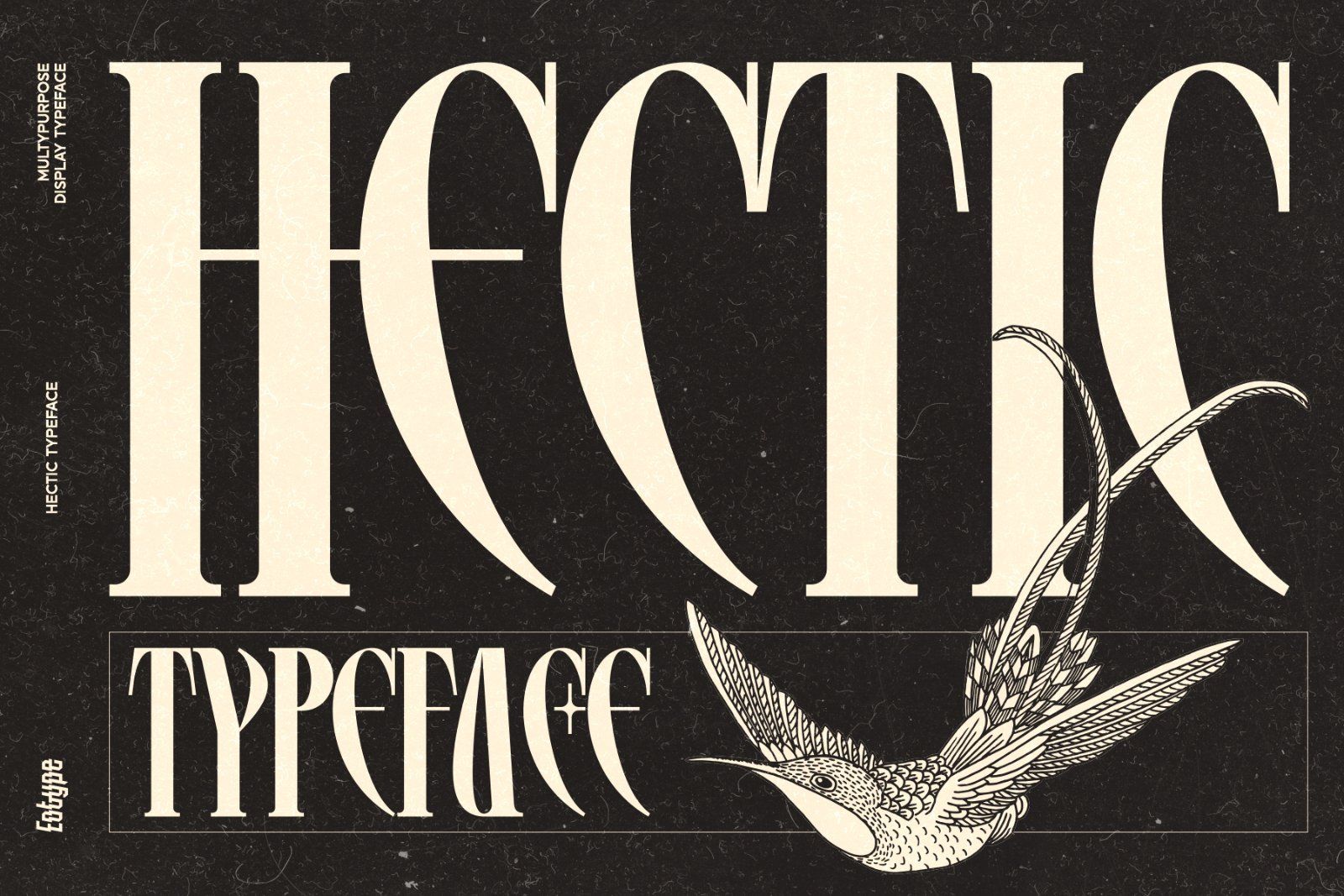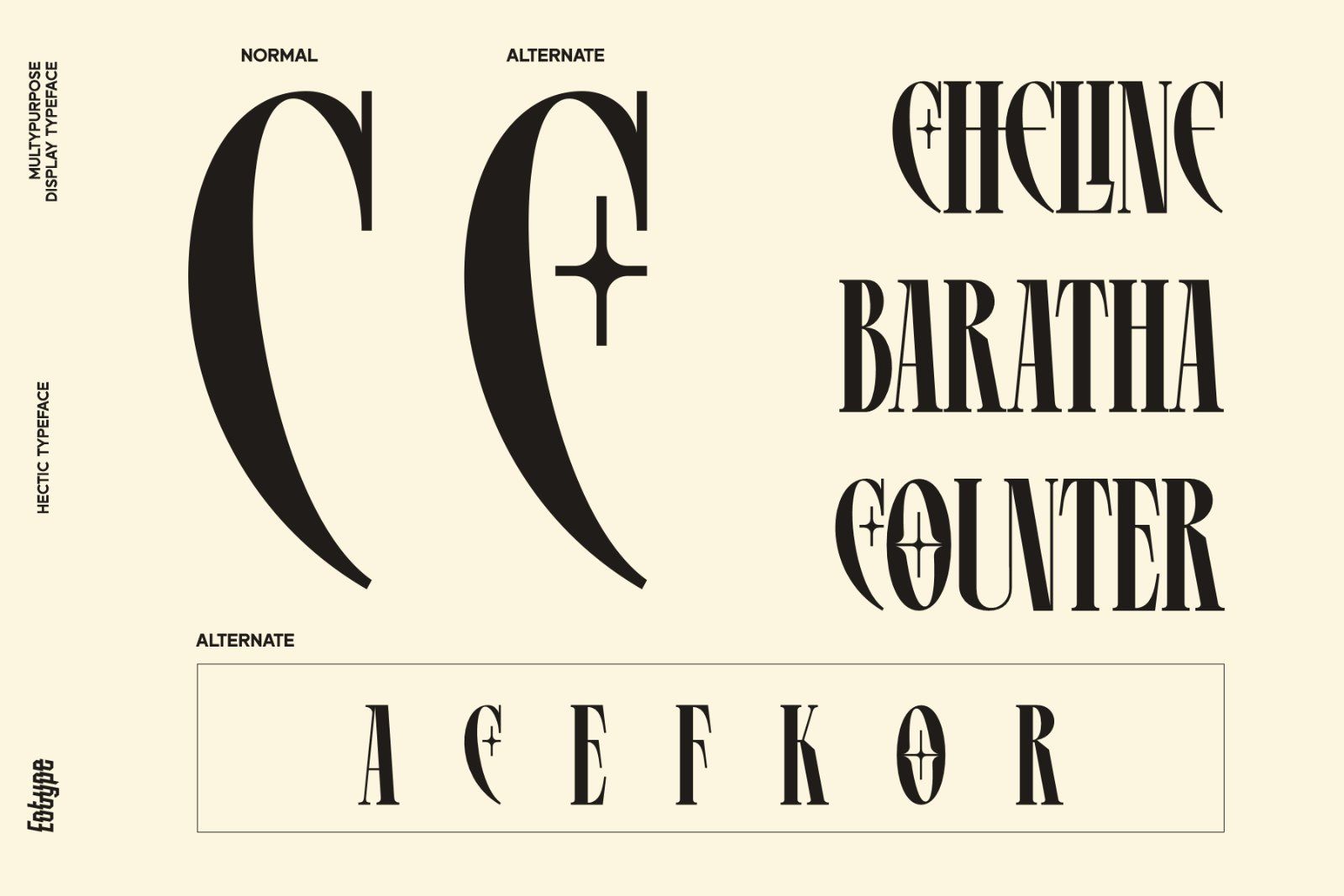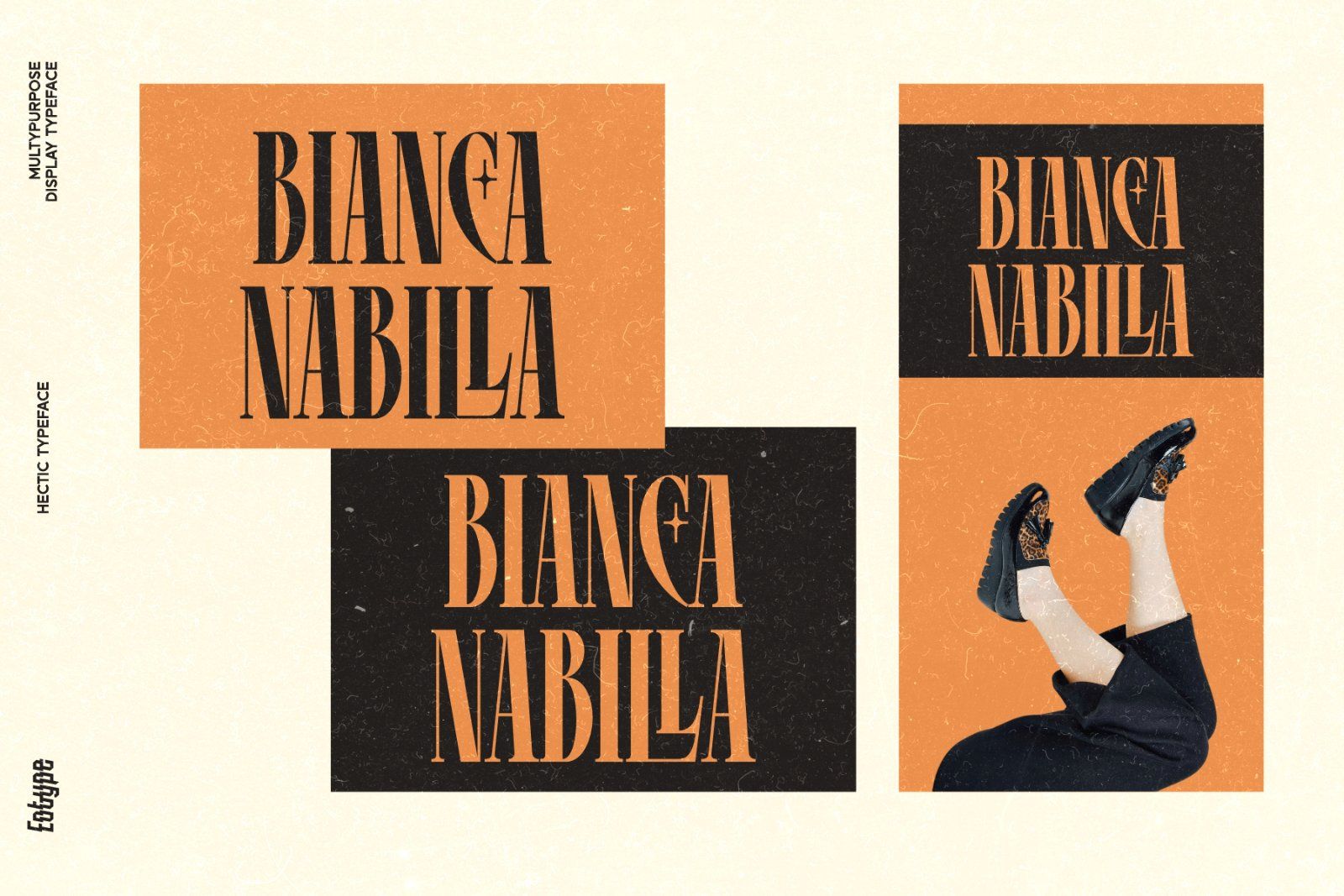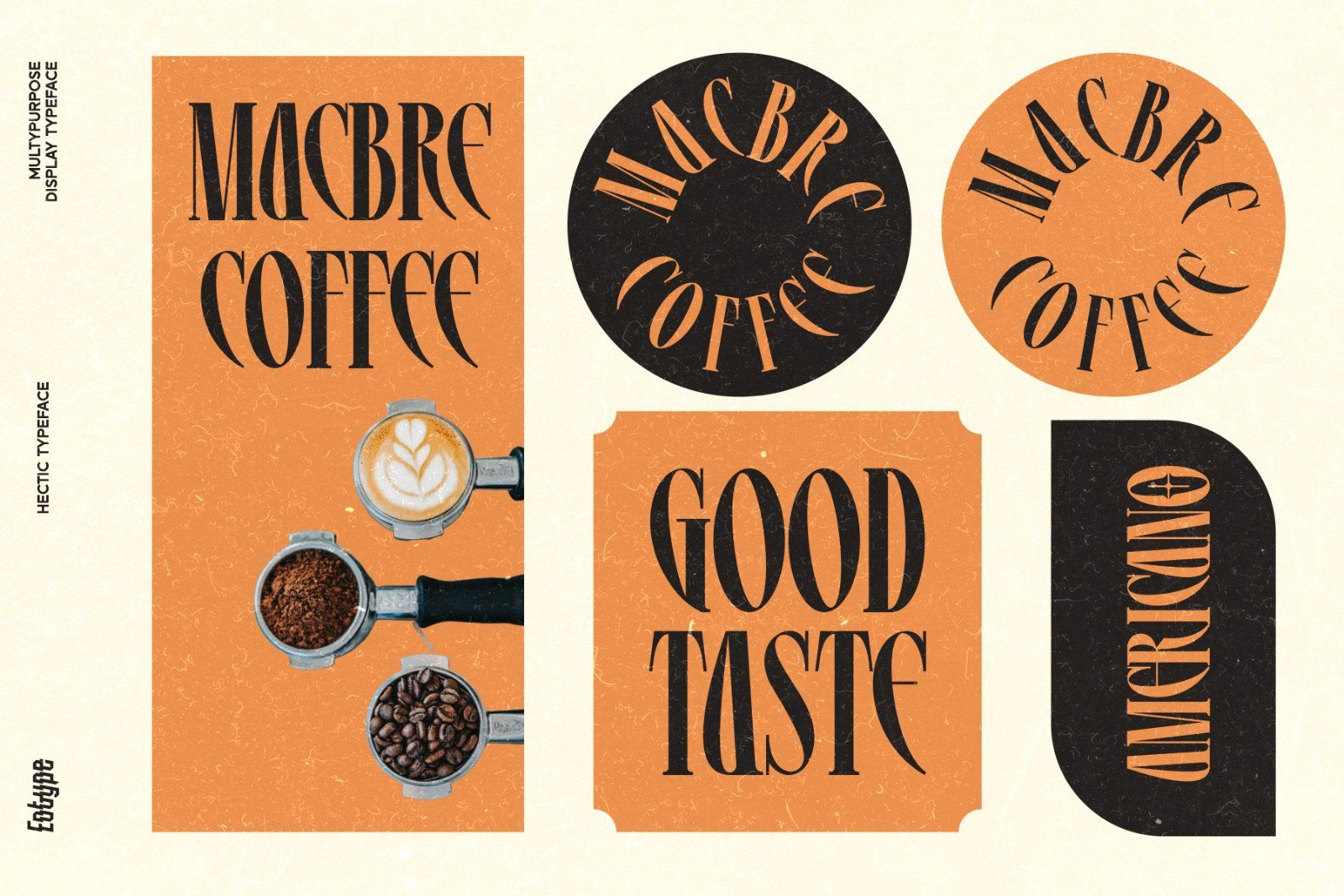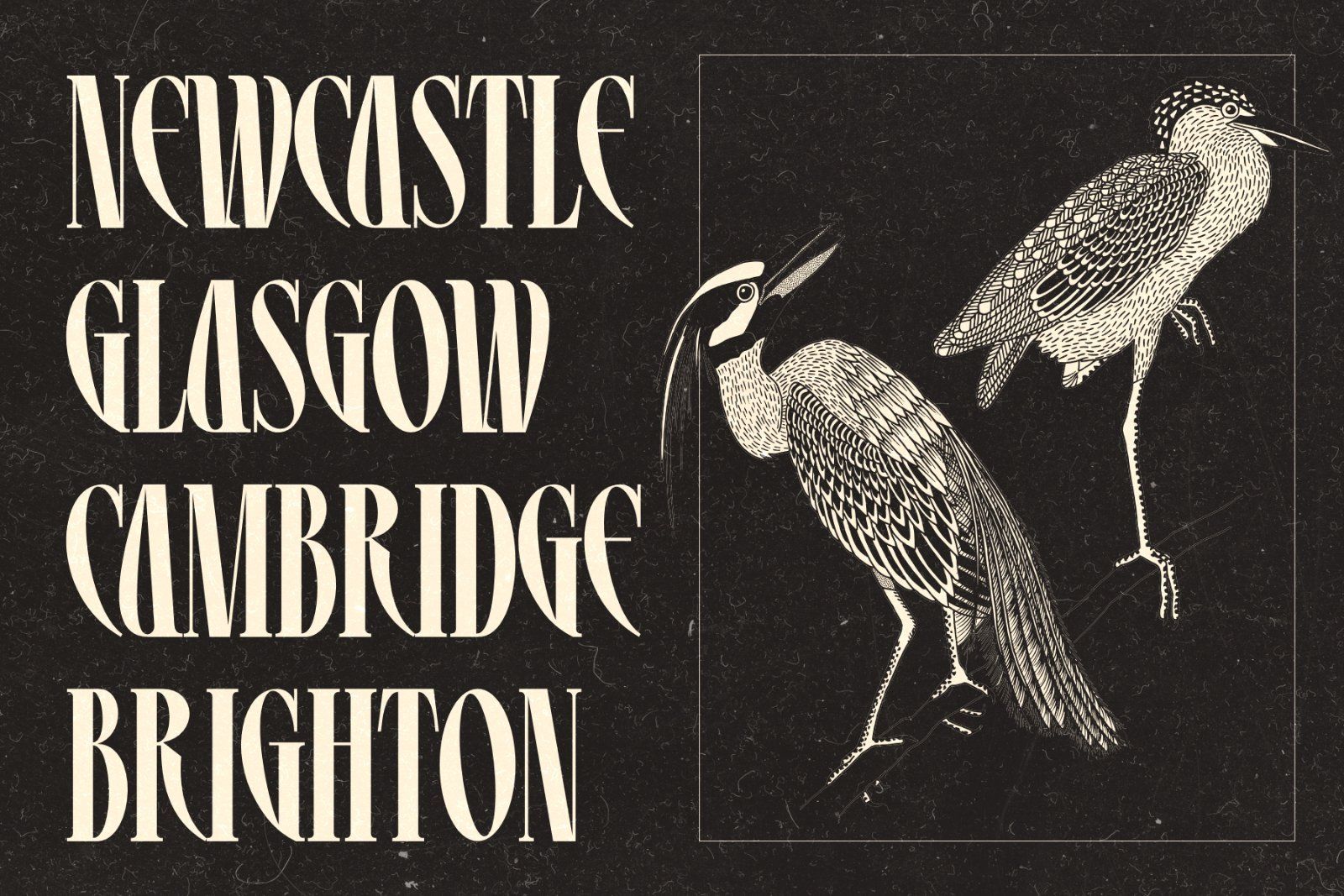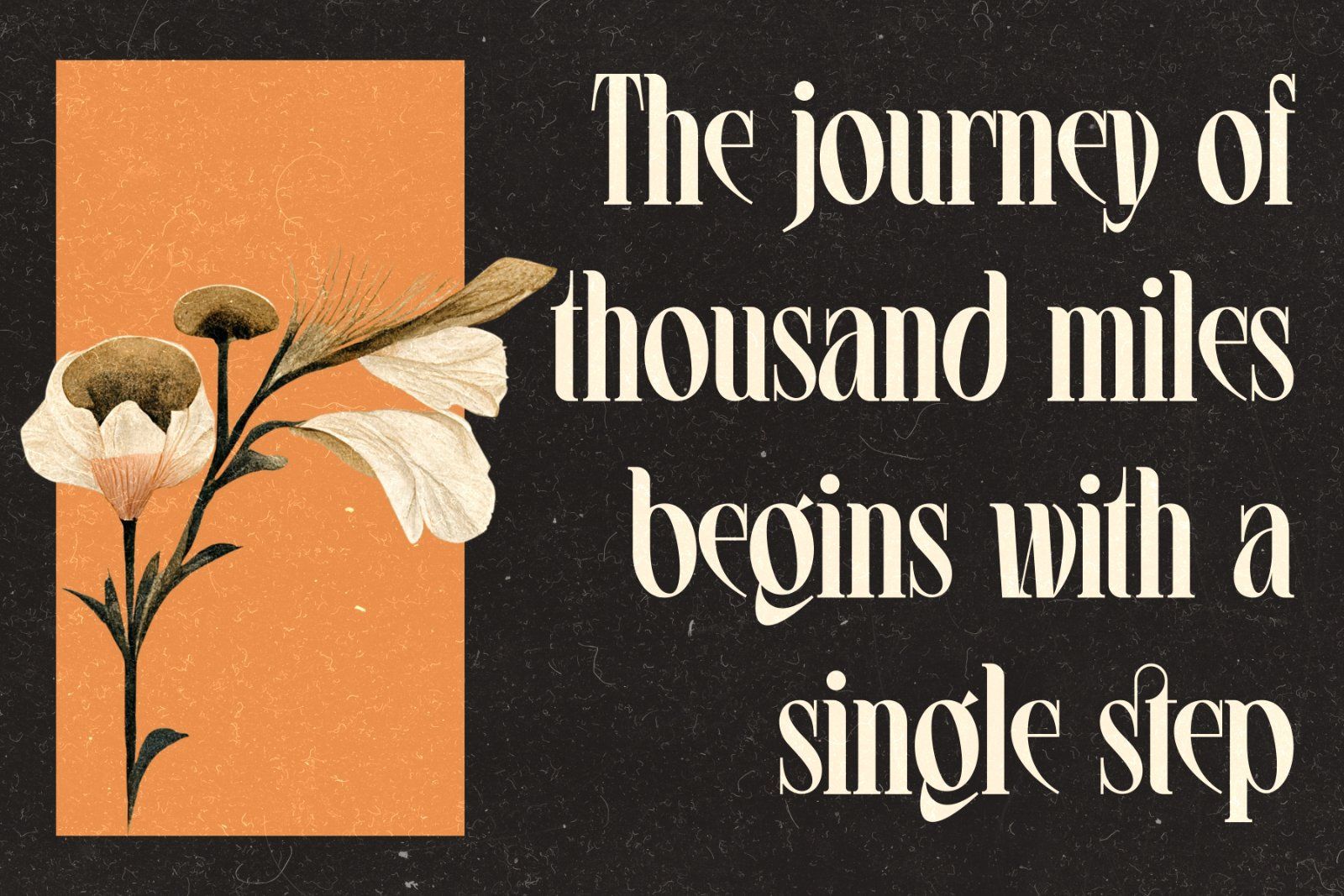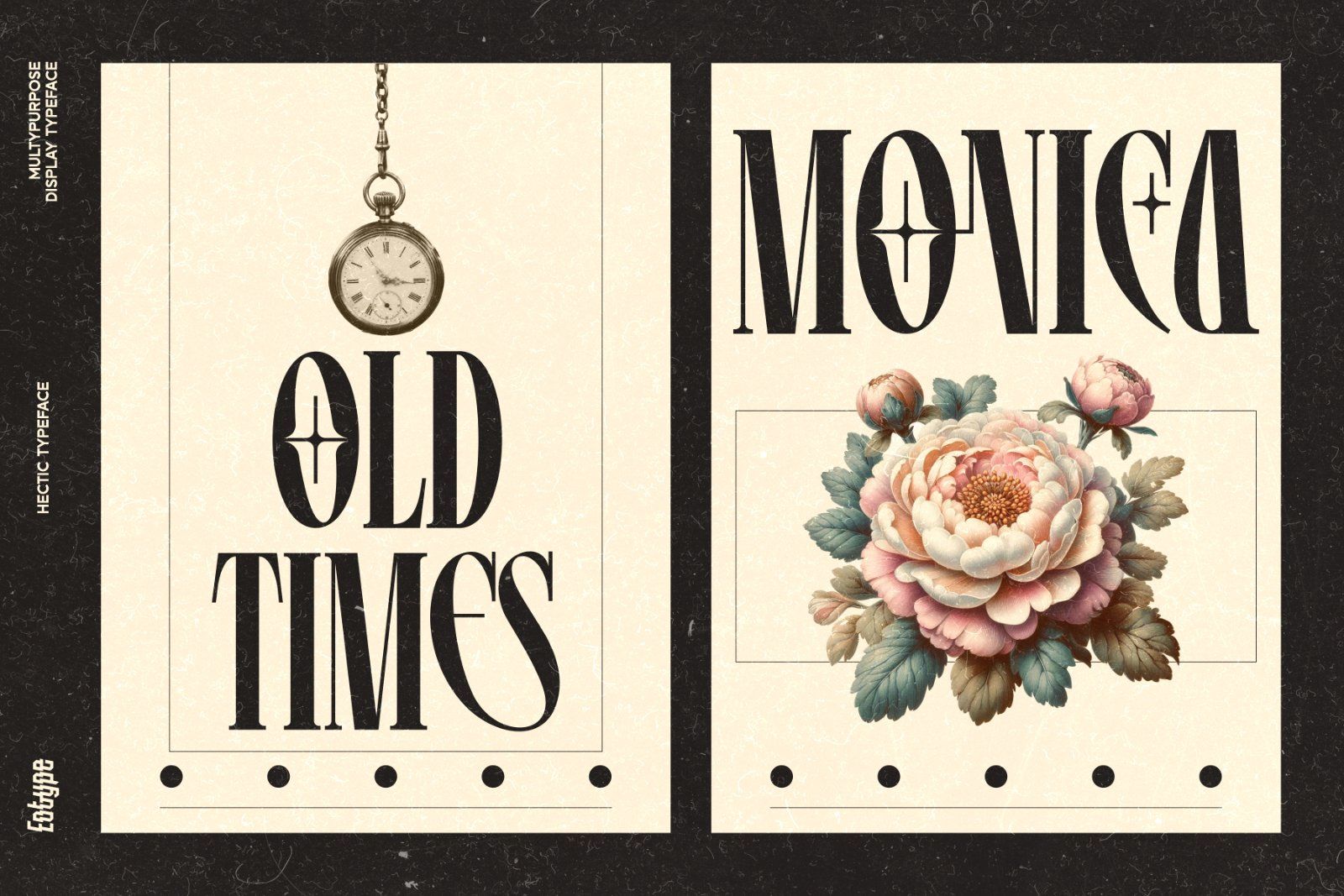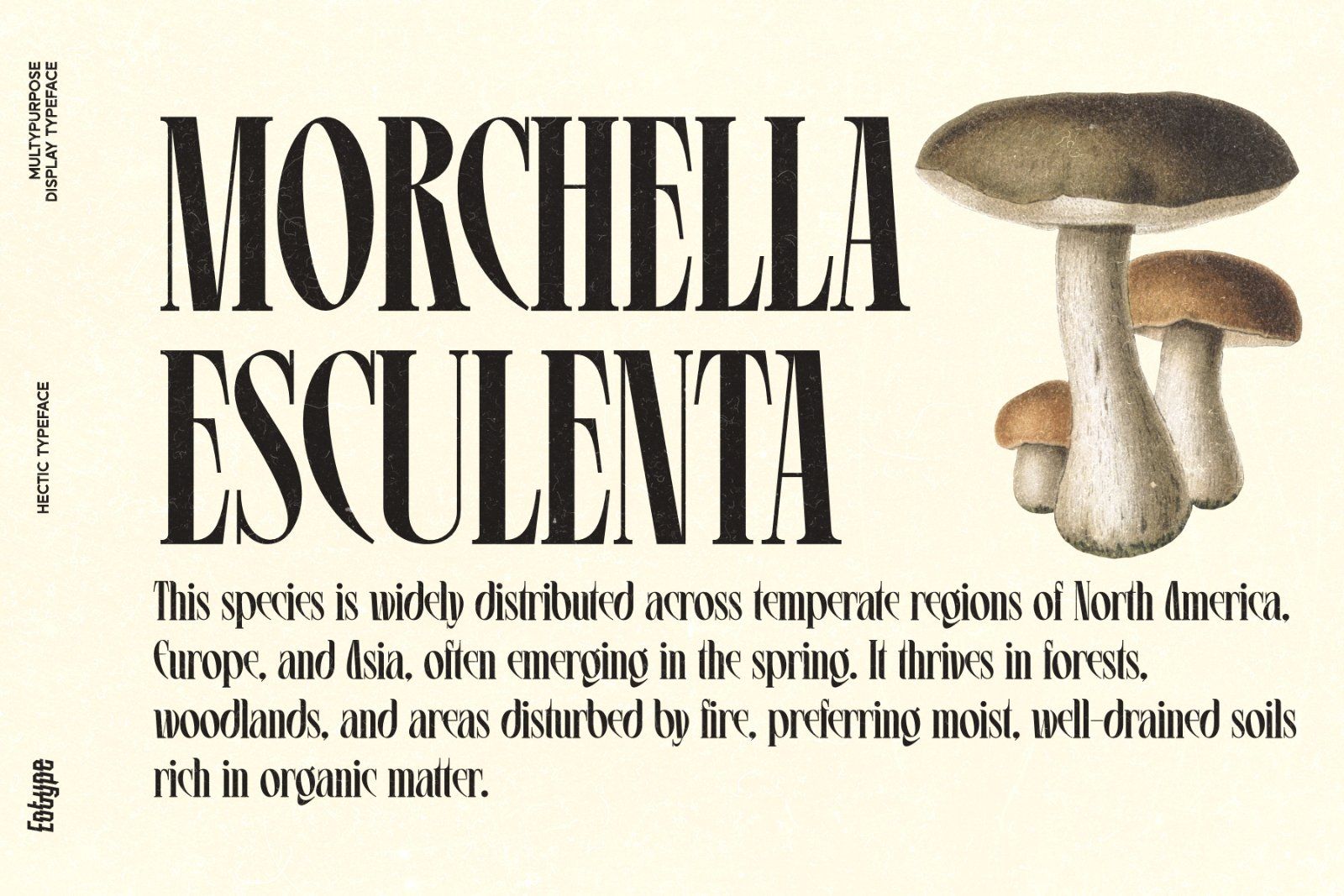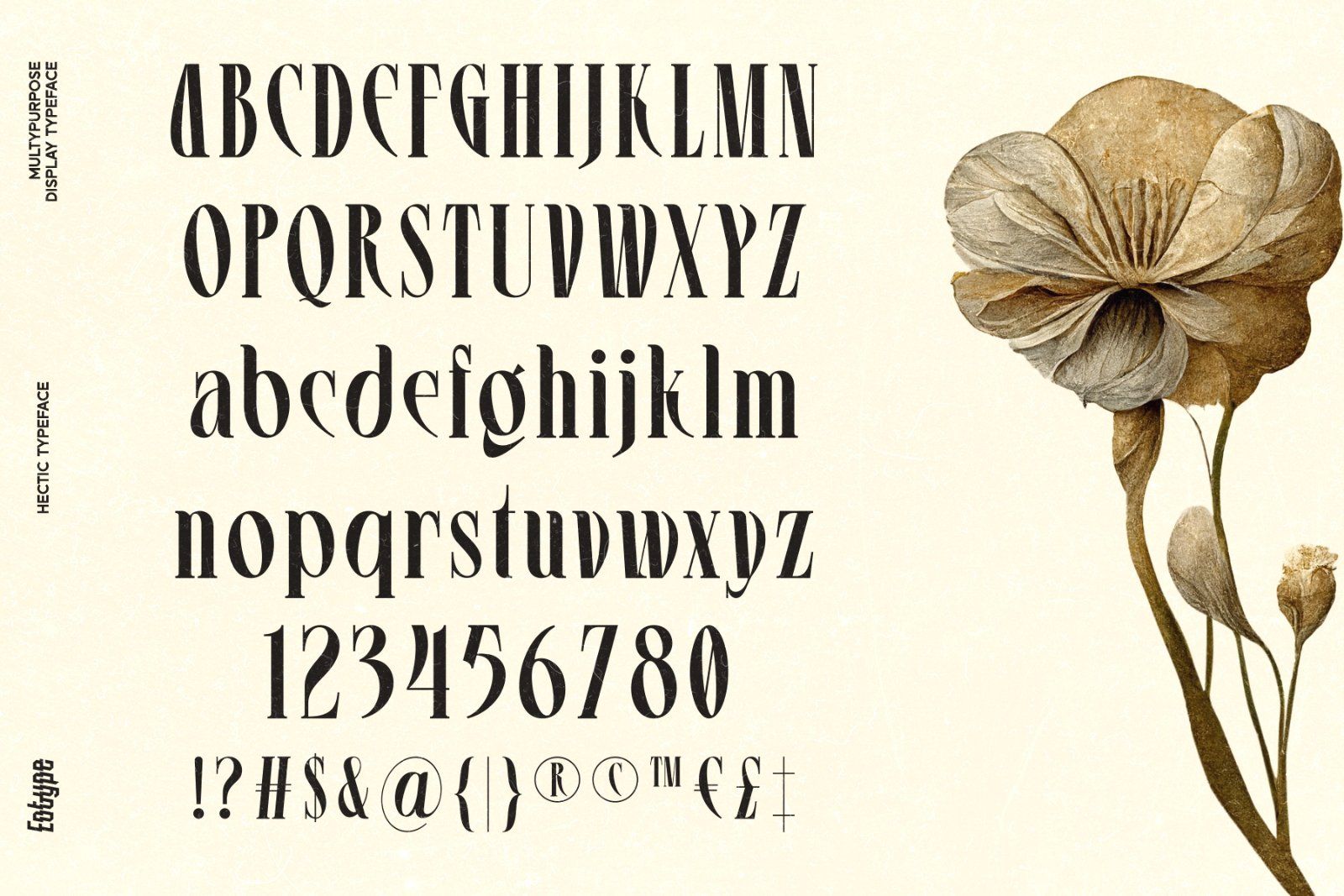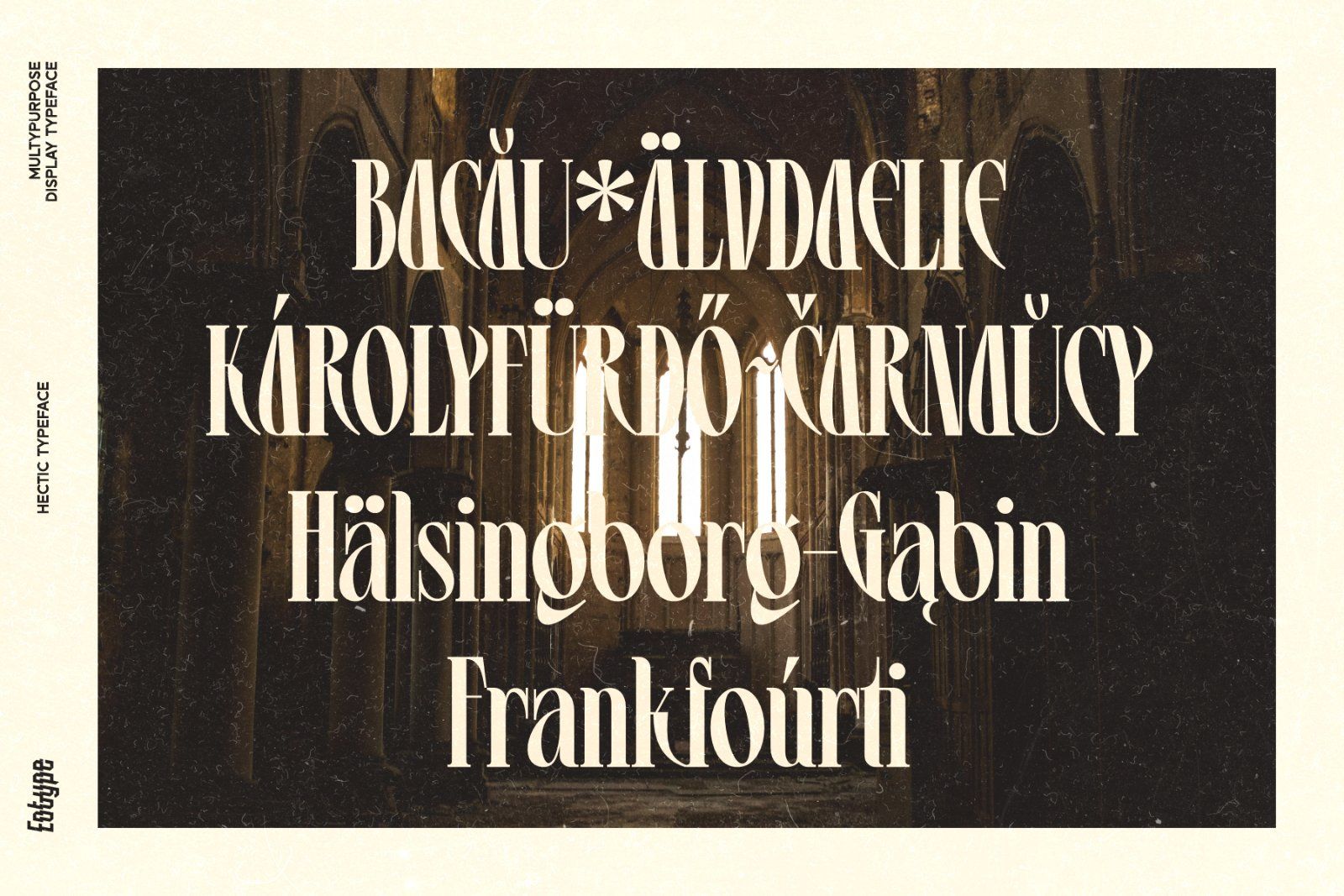
Hectic display fonts are typefaces designed to provide visual impact while exuding sophistication and style. Hectic display fonts can be used for headlines, headings, logos, invitations, and branding materials that prioritize aesthetic appeal.